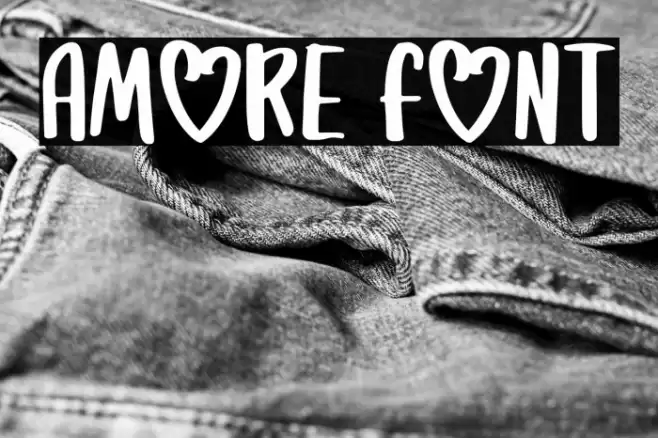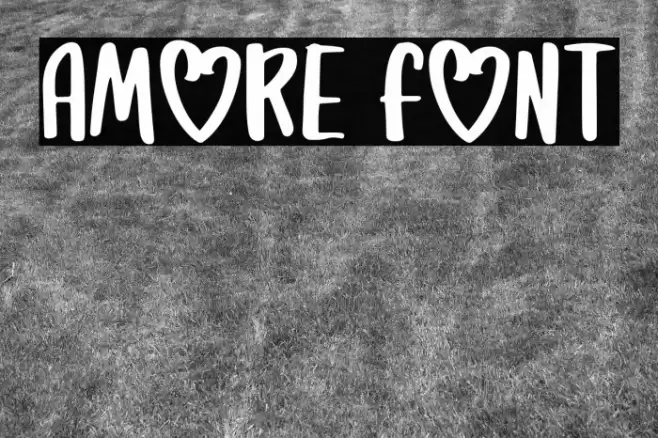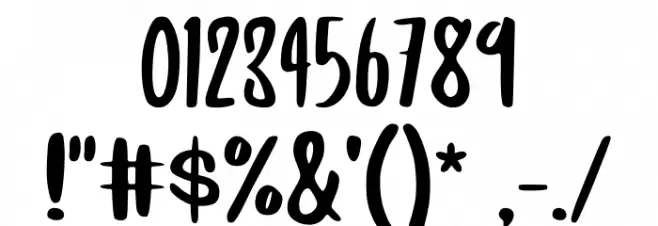
Amore Font
Amore Description
This font features a playful and bold handwritten style, characterized by its thick strokes and rounded edges. The uppercase letters are tall and slightly condensed, while the lowercase letters maintain a consistent flow with a casual, friendly appearance. The numbers and special characters complement the overall style with similar thickness and rounded forms. The heart-shaped 'O' adds a unique and whimsical touch, making it stand out. This font is perfect for projects that require a fun and approachable aesthetic, such as children's books, greeting cards, or playful branding.
A bold, playful handwritten font with rounded edges and a whimsical touch from Regular fonts.
- Proposed Projects: Ideal for children's books, greeting cards, playful branding, and casual invitations.
- Overall Style: Playful
- Use Case: Headlines, Logos, Invitations